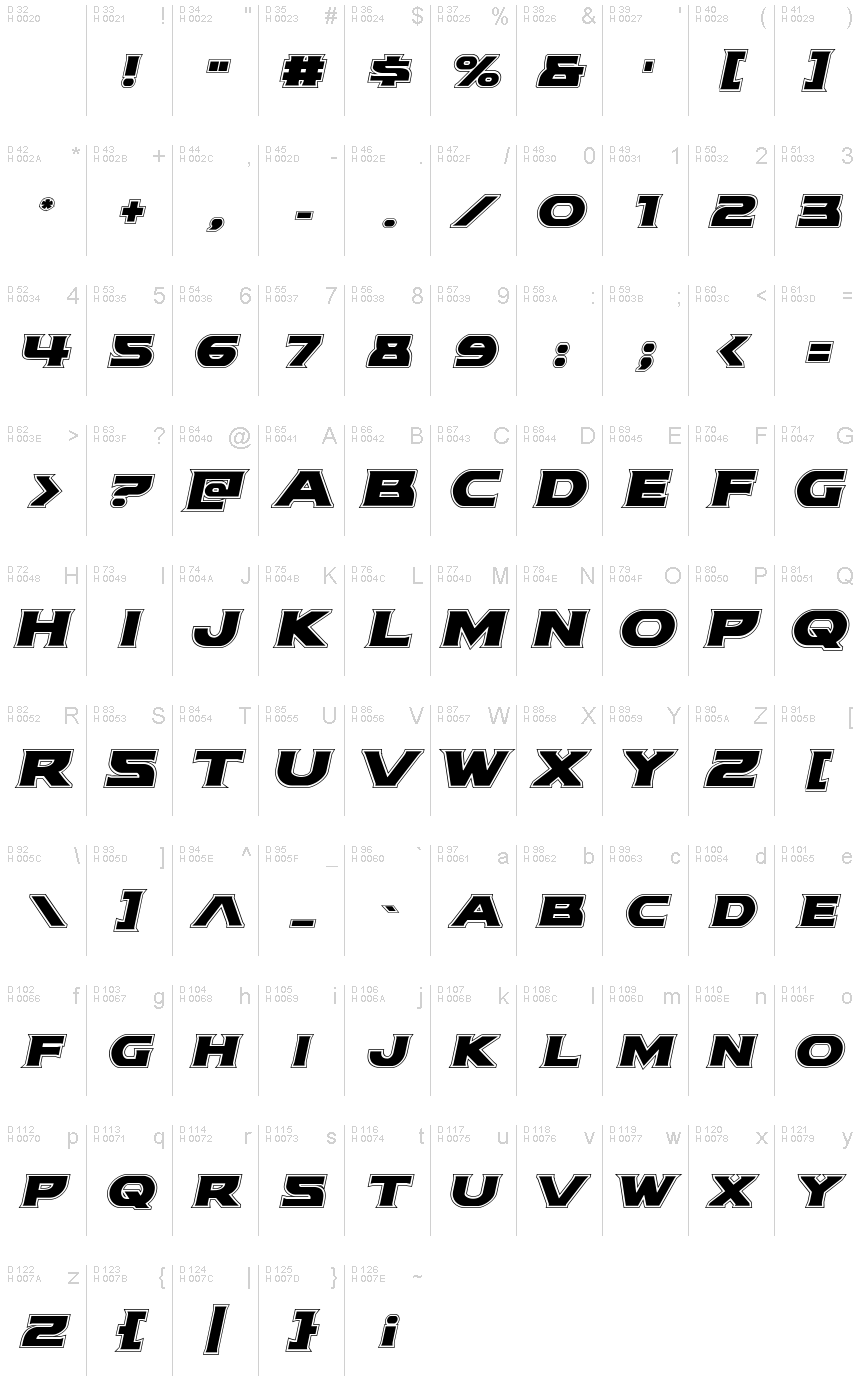
Modi Thorson Academy Italic from Iconian Fonts is a free athletic display font with broad, forward-leaning capitals. Heavy strokes and squared curves give the lettering the force of a team uniform. The double-line edging is crisp and graphic.
The layered contour echoes the borders of team crests and jersey graphics. Sports merchandise and event posters also suit the forward slant and dense forms. In a crest, the letters can become part of the emblem instead of a separate label.